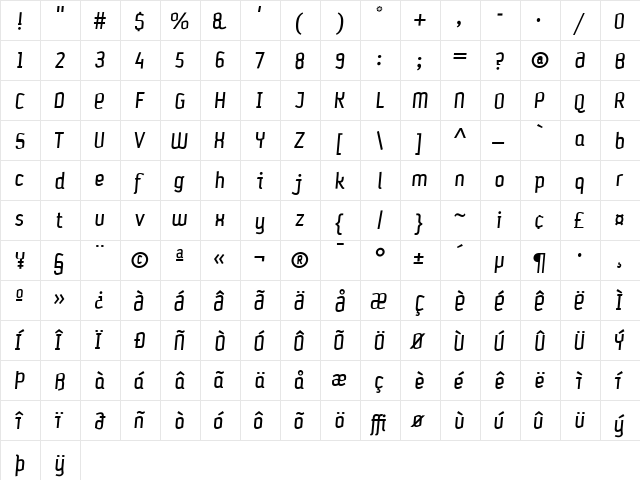
Petrol Medium Italic
Design Context for Petrol Typeface
Petrol takes a measured approach to typography — its balanced proportions and neutral character make it a reliable workhorse for both digital and print work. Its italic angle brings a sense of urgency and motion to the letterforms.
Pro Tip: Use Petrol for emphasis, pull quotes, and subheadings where its slanted energy can add rhythm to the layout.